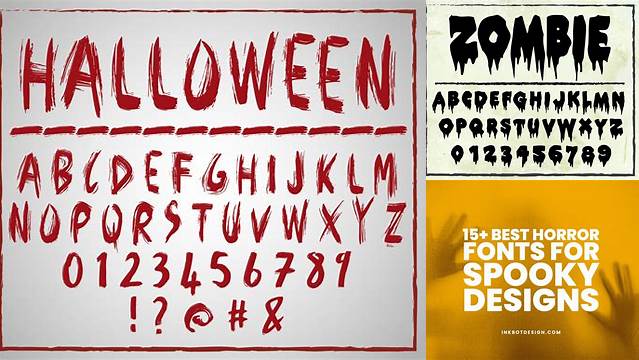
Horror Fonts: Copy & Paste Guide
Hey guys! Ready to inject some serious chills into your designs? Let's dive into the terrifying world of horror fonts! If you're looking to add a spine-chilling touch to your posters, social media posts, Halloween invitations, or any project that needs a dose of the eerie, you've come to the right place. I'm going to show you how to easily copy and paste some seriously spooky fonts to get those ghostly vibes flowing. Forget boring, bland text – we're going full-on fright fest! This guide will cover everything you need to know about finding, selecting, and using the best horror fonts out there. Get ready to transform your text from tame to terrifying! We will explore everything from classic horror font styles reminiscent of vintage movie posters to modern, blood-curdling designs perfect for today's digital landscape. We'll also talk about where to find these fonts (spoiler alert: it's easier than you think!), how to copy and paste them, and how to avoid any technical hiccups along the way. Think of it as your one-stop shop for all things creepy typography. By the end of this article, you'll be armed with the knowledge and the fonts to create truly haunting designs that will send shivers down anyone's spine! Let's get started and make some text scream!
Where to Find the Best Horror Fonts
Okay, let's get down to the nitty-gritty: where do you actually find these horror fonts? The internet is a treasure trove, guys, and you'll discover there are tons of websites dedicated to fonts. It's like a spooky font marketplace, ready for you to explore! But, to save you some time and the potential for a digital haunting (by way of viruses, of course – stay safe!), I'll point you to some of the best and most reliable sources. Keep in mind, some fonts are free, and some require a license or payment. Always check the license before using a font for any commercial project. This will ensure you're following the rules and avoid any legal creepiness down the line. First up: Google Fonts. While it's not specifically a horror font destination, you can find some fantastic options that have a scary vibe, and it's all completely free! It's super easy to use; you can search, browse, and download directly from their site. Next, check out DaFont. This is probably one of the most popular font sites around, and for good reason. It boasts a massive collection, including a dedicated horror section. It's easy to navigate, and you can preview your text before downloading. Just be cautious and double-check that the fonts are free for your intended use. Font Squirrel is another amazing resource. They have a great selection of high-quality, free fonts, and they have a strict policy to only feature fonts with commercial-use licenses. This can be a lifesaver when you're designing projects for clients or businesses. Don't forget about sites like BeFonts or 1001 Fonts. These sites act as aggregators, curating fonts from various designers. Always be sure to check the licensing information. Lastly, consider searching for individual font designers or foundries. Many independent designers offer amazing horror fonts on their own websites or through platforms like Creative Market or Etsy. These can be a great way to support indie artists and discover truly unique fonts. So, there you have it. A good starting point in your hunt for the perfect horror fonts! Now, let's move on to how to use them.
Copy and Paste: Your Guide to Horror Font Application
Alright, so you've found some wickedly cool horror fonts – what's next? The fun part: getting those fonts into your designs! And the method is easy, and it is all about the copy and paste. However, before we jump in, a little heads-up: copy and paste works best for short text or titles. Why? Because while it's super convenient, there are a few limitations. For example, it won't allow you to dynamically edit your text later on, or change the text size, color, or other properties within your design software. Still, it is perfect for short phrases, headings, and social media posts. The method is simple. First, install the font on your computer if you have not already done so. This typically involves downloading the font file (usually .ttf or .otf) and then opening it to install it on your operating system. Once installed, you'll be able to use it in various programs. Now, go to a website where you can generate text using the font. You can either search for a "font generator" online (there are tons of them!) or create your text directly within the font's design program. Type your text into the generator or program. Preview the text with your desired horror font. Some websites let you customize the size, color, and even effects. Now, select your text and copy it to your clipboard (Ctrl+C on Windows, Cmd+C on Mac). Open your design software (like Photoshop, Canva, or even a word processor). Create a text box or find the place where you want the text to appear. Paste the copied text into the text box (Ctrl+V on Windows, Cmd+V on Mac). You should now see your text displayed in your chosen horror font! If everything works as it should, congratulations! You've successfully copy-pasted your horror font. Keep in mind that the appearance of the text may vary slightly depending on the software you are using. You may need to adjust the size, kerning (spacing between letters), or other formatting options to get the perfect look. If you're having trouble with the copy and paste method, there are a few troubleshooting tips to keep in mind. First, make sure the font is installed on your system correctly. Double-check your design software's text settings to ensure that the font is available in its font menu. Also, some font generators might produce special characters that are not compatible with all programs. If this happens, try a different font generator or a different method. Another thing to keep in mind is that some social media platforms or design programs don't support custom fonts for regular text. In this case, you might have to use the font to create an image of your text and then upload that image instead. It's a slightly different workaround, but it will allow you to use your horror font. So, go forth, copy, paste, and create some frightfully fun designs!
Design Tips for Maximum Horror Impact
Now that you've mastered the art of copy and paste and found some killer horror fonts, let's talk about how to make your designs truly scream! Beyond simply choosing a font, it is all about the design. A well-crafted design goes beyond the font to create a terrifying atmosphere. First, consider the overall mood. What kind of horror are you aiming for? Is it classic, gothic, slasher, or something more modern and psychological? This will inform your font choice, color palette, and imagery. Classic Horror: Embrace fonts that are reminiscent of old movie posters. Think dripping blood, scratchy textures, and bold serifs. Color: Use a limited and thematic color palette. Think about blood red, deep blacks, eerie greens, and ghostly whites. Use these colors to emphasize certain elements. Imagery: Pair your fonts with eerie images, illustrations, or photographs. Don't be afraid to use images of skulls, ghosts, and other creepy things. Consider adding shadows, textures, and distressing effects. Adding a subtle texture or a grunge effect can make your font look much more interesting. You can find texture overlays online or create them yourself. Experiment with layering textures over your text to add depth and a sense of age. A slightly distressed or worn look can enhance the horror feel of your designs. Use shadows and outlines. These elements can add depth and definition to your fonts, making them pop off the page. Experiment with different shadow angles and colors. Make sure your text is readable. While your font choice is essential, remember that the text still needs to be legible. Ensure that the font size is appropriate for the intended audience. Also, make sure there's enough contrast between the font color and the background. Consider the layout and spacing. A well-designed layout can significantly impact the effectiveness of your horror design. Leave enough white space around your text and images to prevent the design from looking cluttered. Use the typography to create a hierarchy that guides the eye. Consider the background and the overall composition. A dark, atmospheric background can create the perfect setting for your horror font. Consider the position of your text relative to other elements. Use these tips to create some truly haunting designs! So, go get creative and have fun crafting the spooky designs of your dreams!
Avoiding Common Horror Font Mistakes
Alright, now that we've covered the basics of finding, applying, and designing with horror fonts, let's talk about avoiding some of the common mistakes that can take your designs from terrifying to terrible. Nobody wants their work to be a laughing stock, so here's how to avoid the most frequent pitfalls. One of the most common mistakes is choosing the wrong font. Not every font will do. Make sure the font you choose fits the tone and theme of your project. A playful, cartoonish font might not be the best choice for a serious horror piece. On the flip side, a super complex or illegible font might be hard to read, which can ruin the design. Make sure that your chosen font is easy to read, especially at smaller sizes. The audience needs to be able to understand your message, right? Another common problem is overuse. Less is often more, especially when it comes to horror. Don't use your chosen horror font for everything! Reserve it for titles, headings, and key phrases. Use a more neutral font for the body text to ensure readability. Another problem to avoid is poor contrast. Make sure your text contrasts well with the background. High contrast is key to ensuring readability. Also, watch the size and scale of your font. A font that is too small might be unreadable, while a font that's too large might overwhelm the design. Use color carefully. Overusing or using the wrong colors can cheapen your work. Stick to a consistent palette and make sure your colors complement the font. If you want a truly authentic horror vibe, be careful with special effects. While effects like drop shadows and outlines can be effective, overuse can make your design look cheesy. Be mindful of the layout. A cluttered layout can make your design look confusing and unprofessional. Leave enough white space around your text and images to give your audience's eyes some breathing room. The last point is to always proofread. Proofread everything, even if it's a horror design. Typos can break the immersion and ruin the impact of your work. This should save you some grief and allow you to make your work more professional.
Conclusion: Unleash Your Inner Horror Designer
And there you have it, guys! We've journeyed through the crypts of typography, exploring the best horror fonts and the secrets of copy and paste to unleash your inner horror designer. You're now equipped with the knowledge to find those perfect chilling fonts, apply them with ease, and design projects that send shivers down the spines of your audience. Remember, the key is experimentation and creativity. Don't be afraid to mix and match fonts, try different color palettes, and experiment with effects. The world of horror design is vast and full of possibilities. So, go forth, create something terrifying, and let your imagination run wild! Thanks for joining me on this spooky adventure. Until next time, keep it creepy!